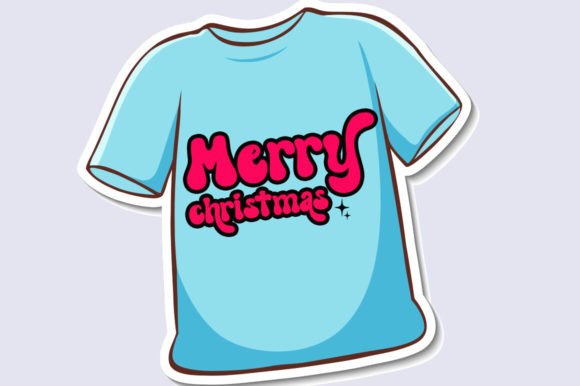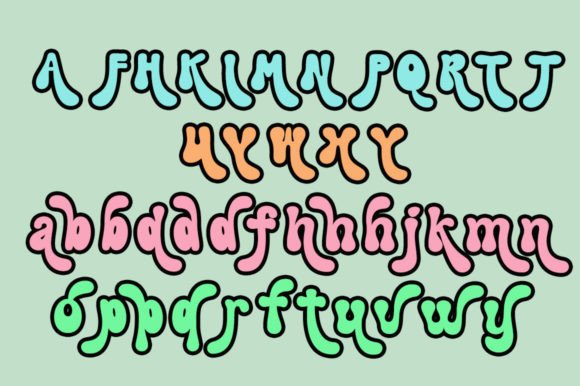
Kids Stacked Font
KIDS STACKED Font is a festive and happy typeface that reflects the spirit of the holiday season. With its decorative elements and unique flair, it adds a touch of charm to your designs. Perfect for greeting cards, gift labels, and holiday-themed projects, this font brings a cheerful and nostalgic atmosphere to your words. Let your typography shine with the magic of Christmas Fonts!